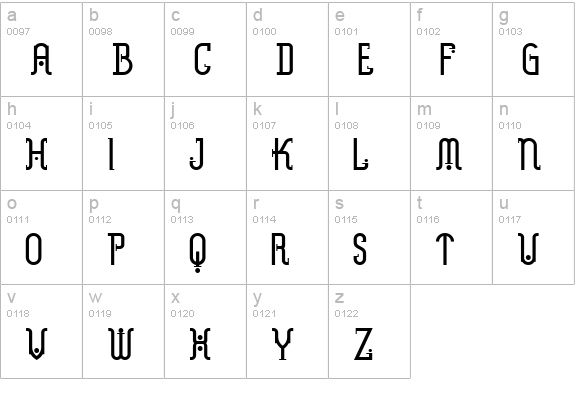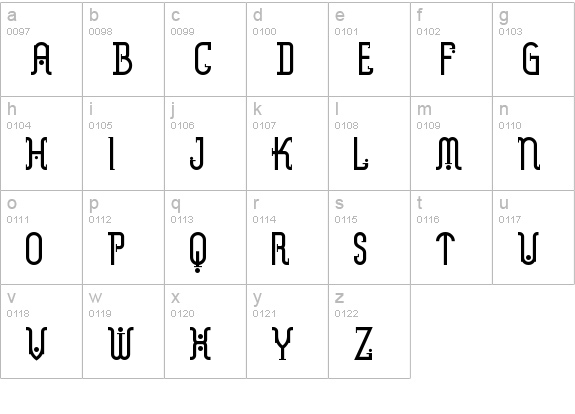
MetropolisNF Font Details
MetropolisNF is a stunning and versatile font that effortlessly combines modernity with sophistication. With its clean lines and sleek aesthetic, this typeface is perfect for a wide range of design projects, from branding to editorial layouts. The geometric shapes and balanced proportions of MetropolisNF exude a sense of elegance and professionalism. What sets MetropolisNF apart is that it is not only visually striking but also completely free to use. This means that you can elevate your designs without any extra cost. You can easily download MetropolisNF for free at FontsMarket.com, where you'll find a treasure trove of high-quality fonts waiting to inspire your creativity. Embrace the power of MetropolisNF and take your designs to the next level with this exceptional font.